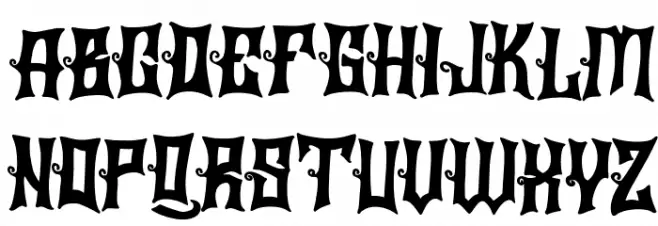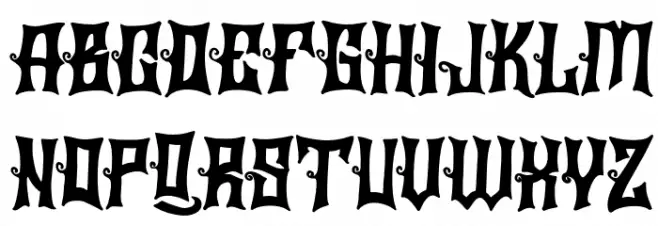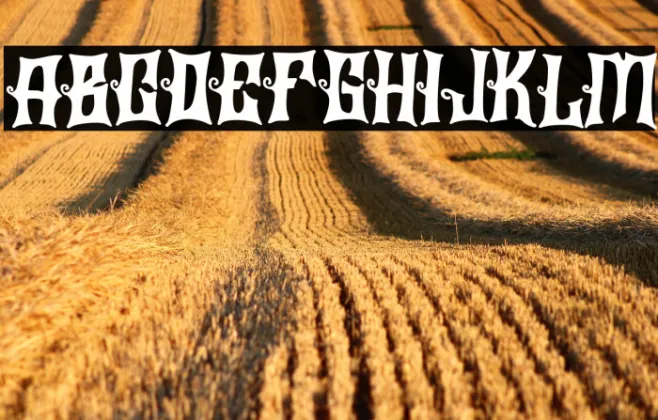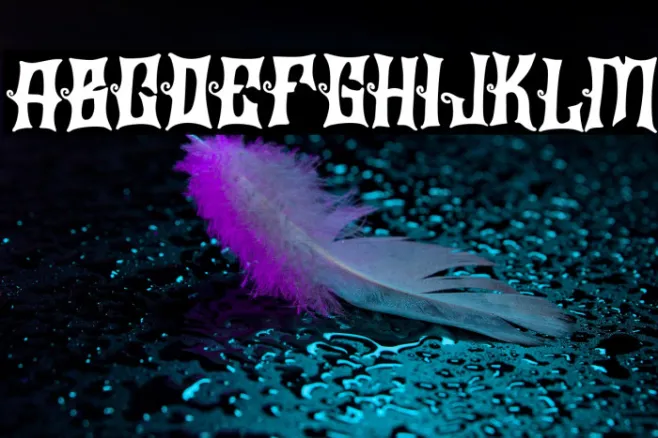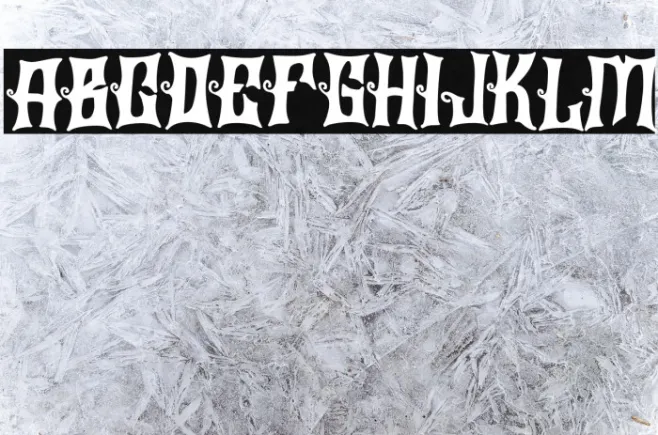
BraierFREE Font
BraierFREE Description
This font features a bold and decorative style with intricate details that add a unique flair to each character. The uppercase letters are designed with sharp, angular edges and embellished with small, ornamental swirls, giving it a gothic and medieval appearance. The font maintains a consistent weight throughout, ensuring readability while still offering a dramatic and artistic look. The characters are tightly spaced, enhancing the compact and cohesive feel of the text. This font is ideal for projects that require a strong visual impact, such as posters, logos, or branding materials that aim to convey a sense of tradition and elegance.
A bold, decorative font with gothic and medieval influences, featuring intricate details.
- Font: BraierFREE
- Character Spacing: Tight